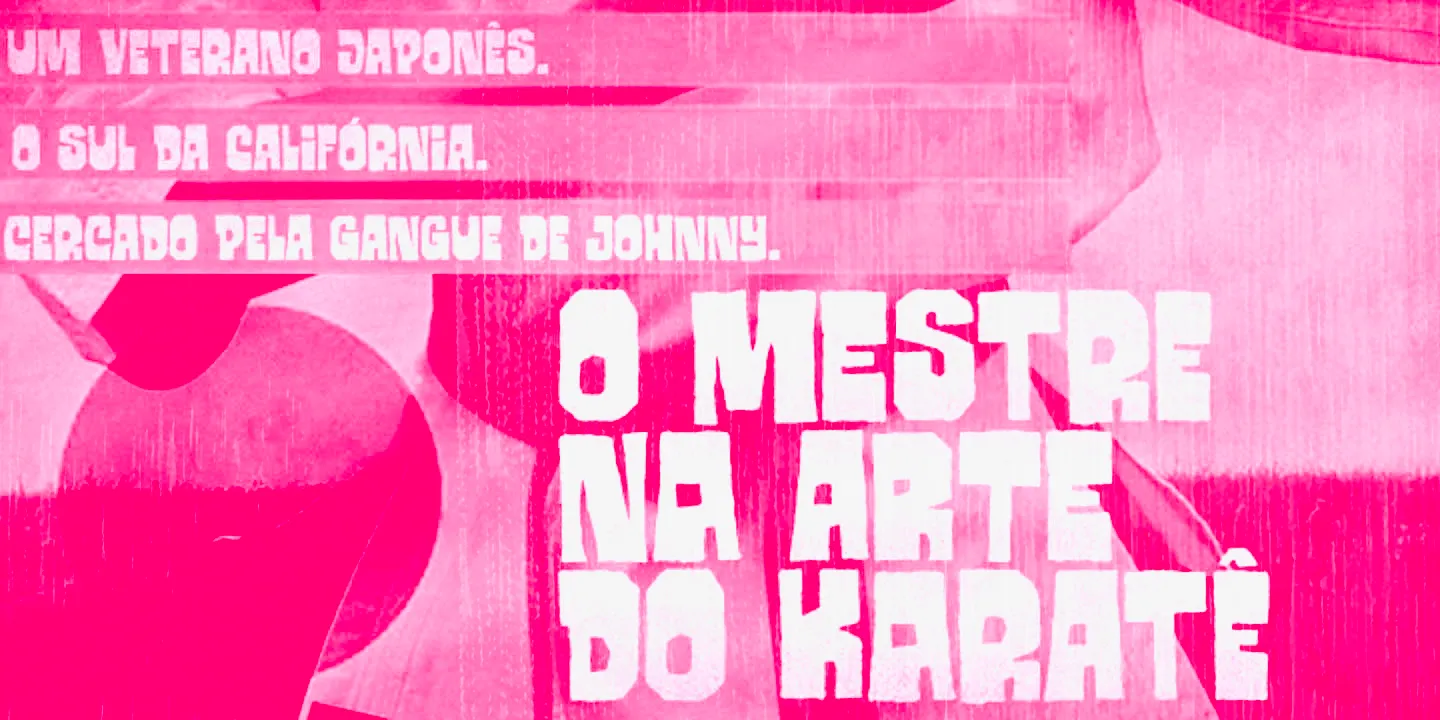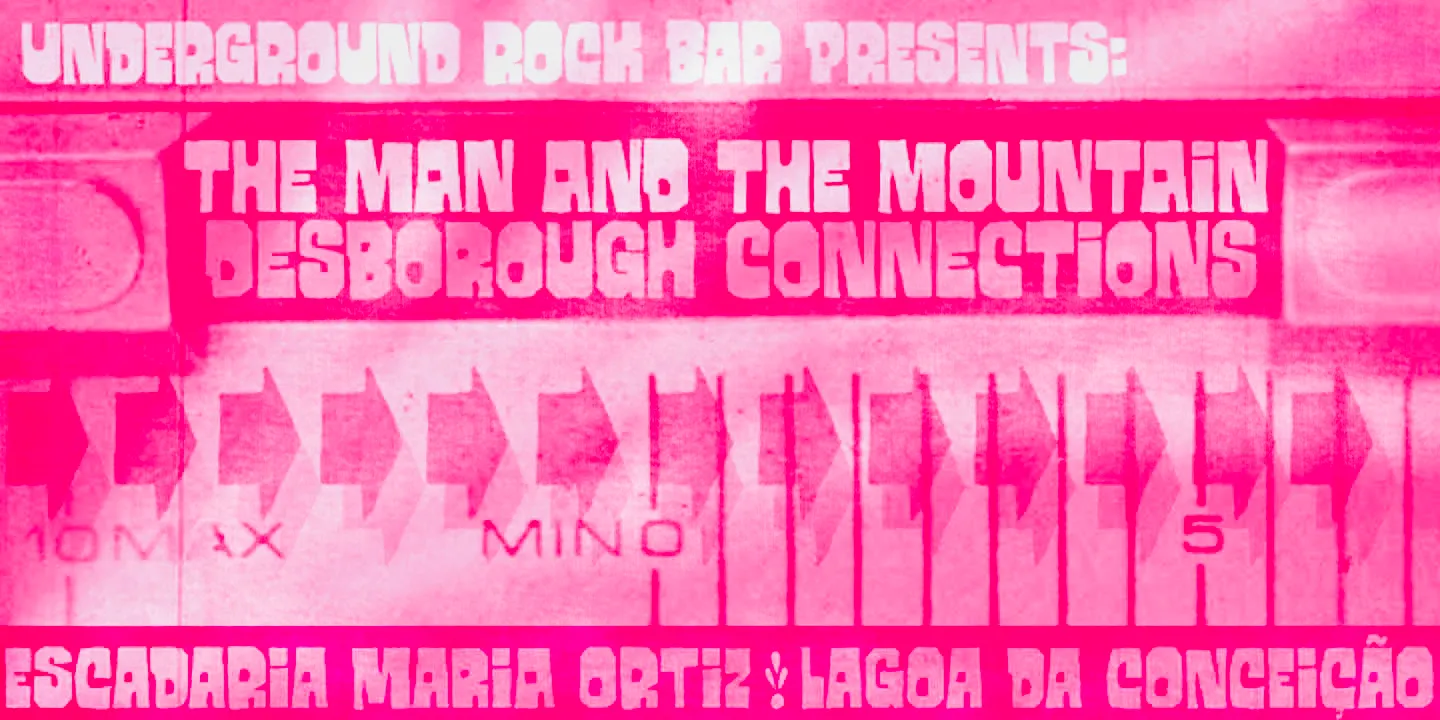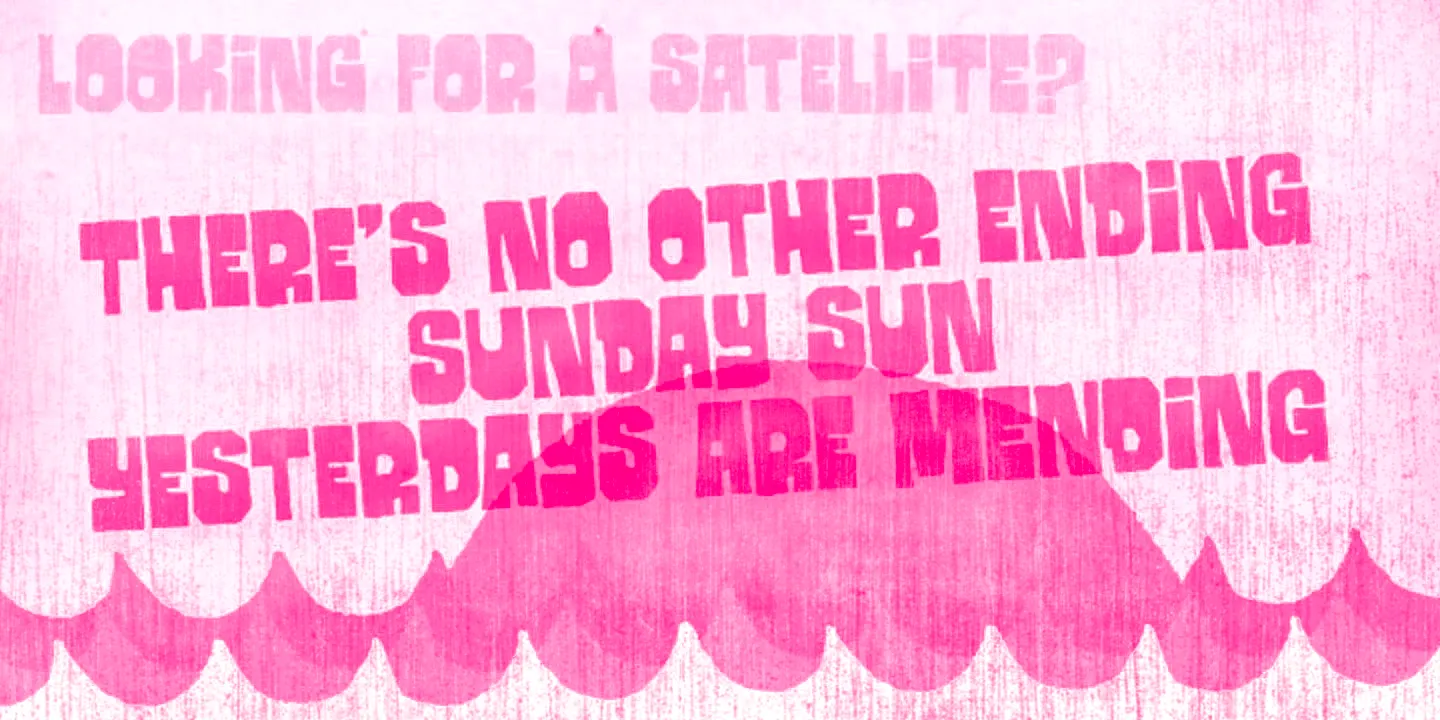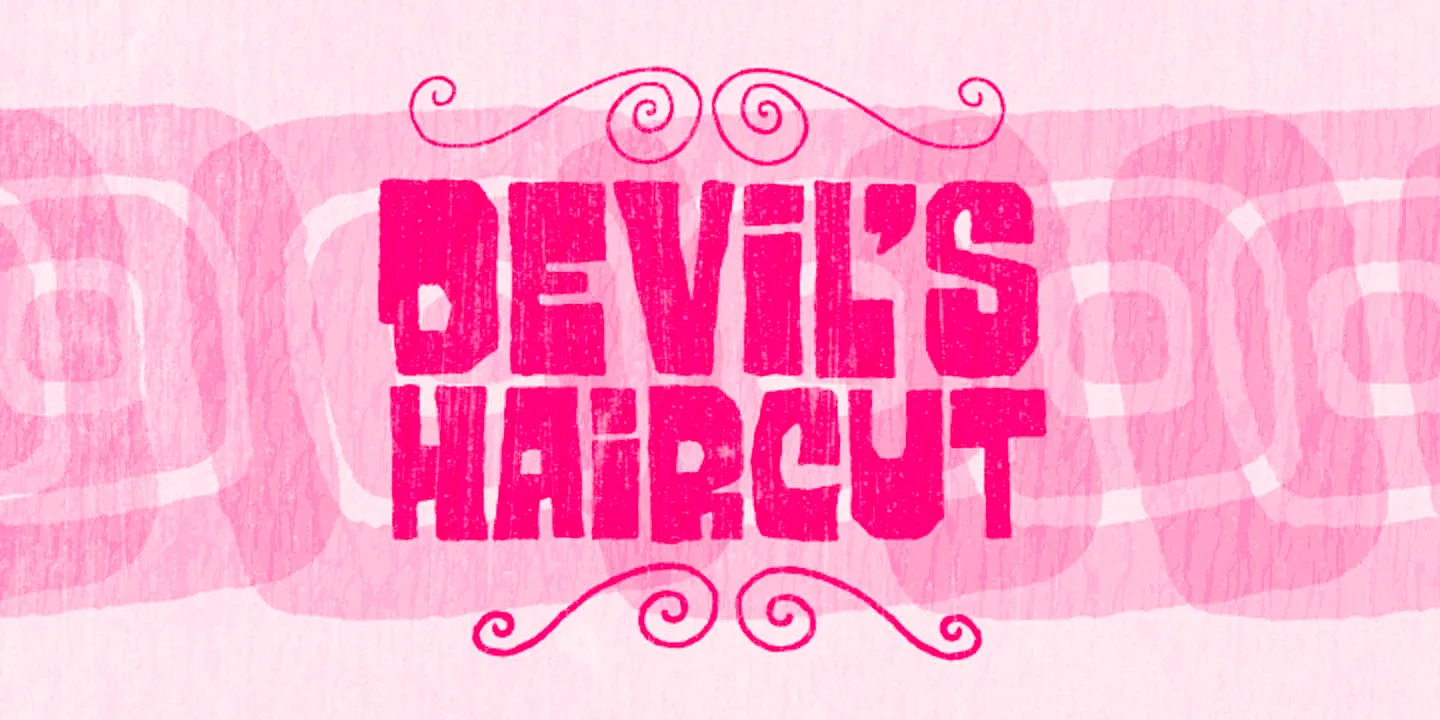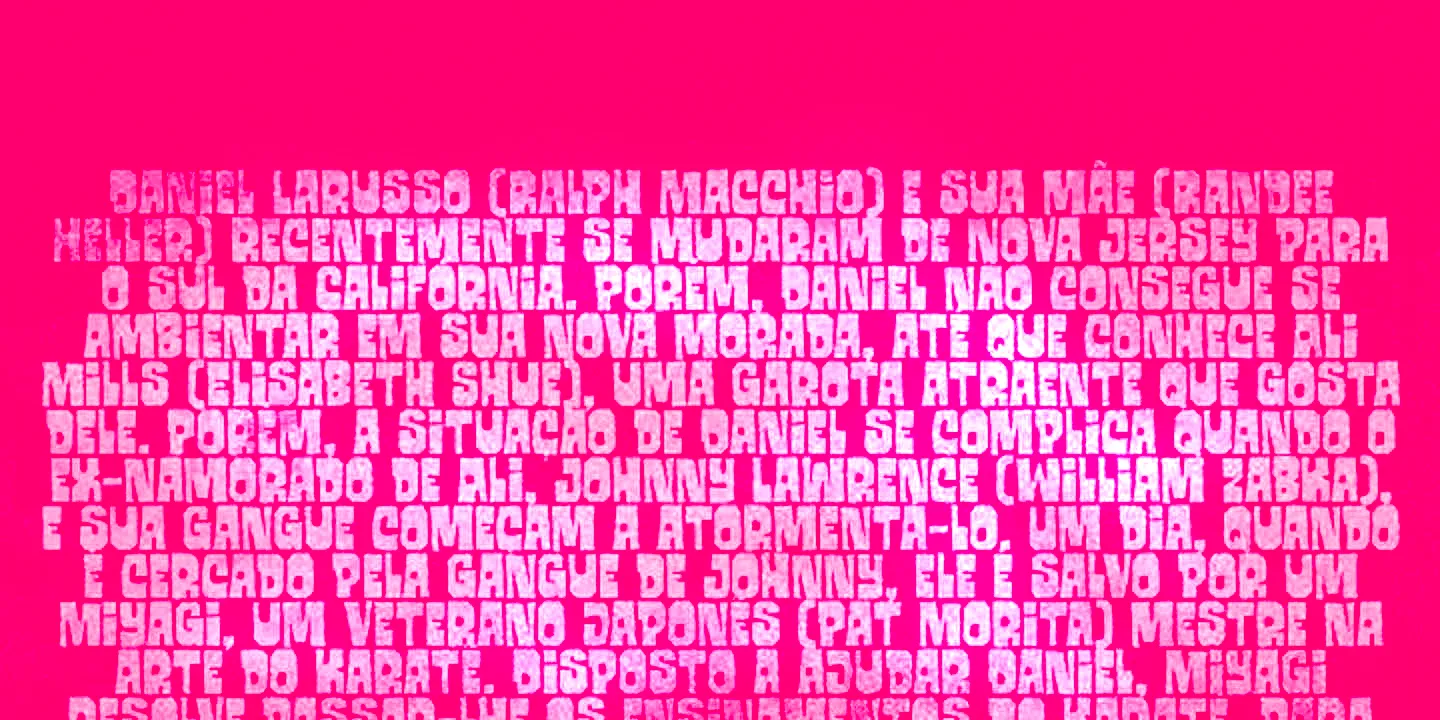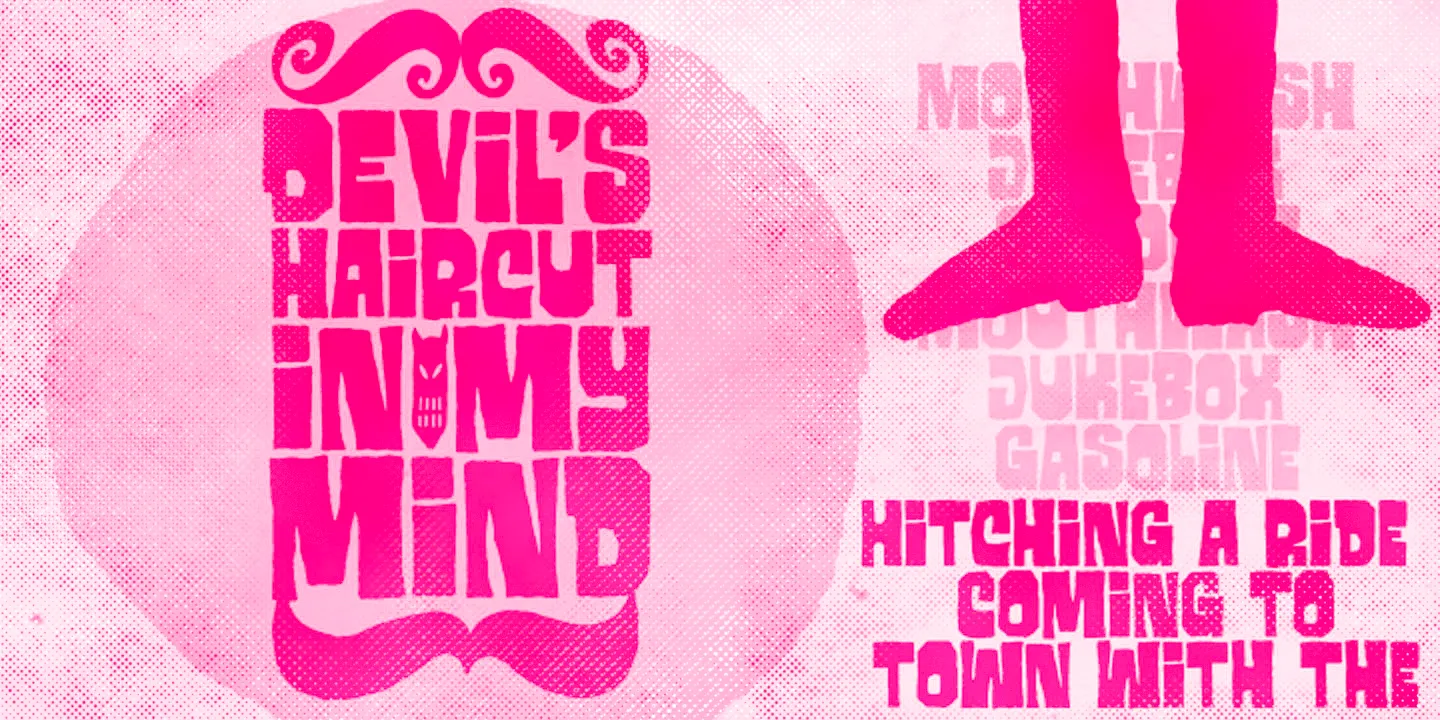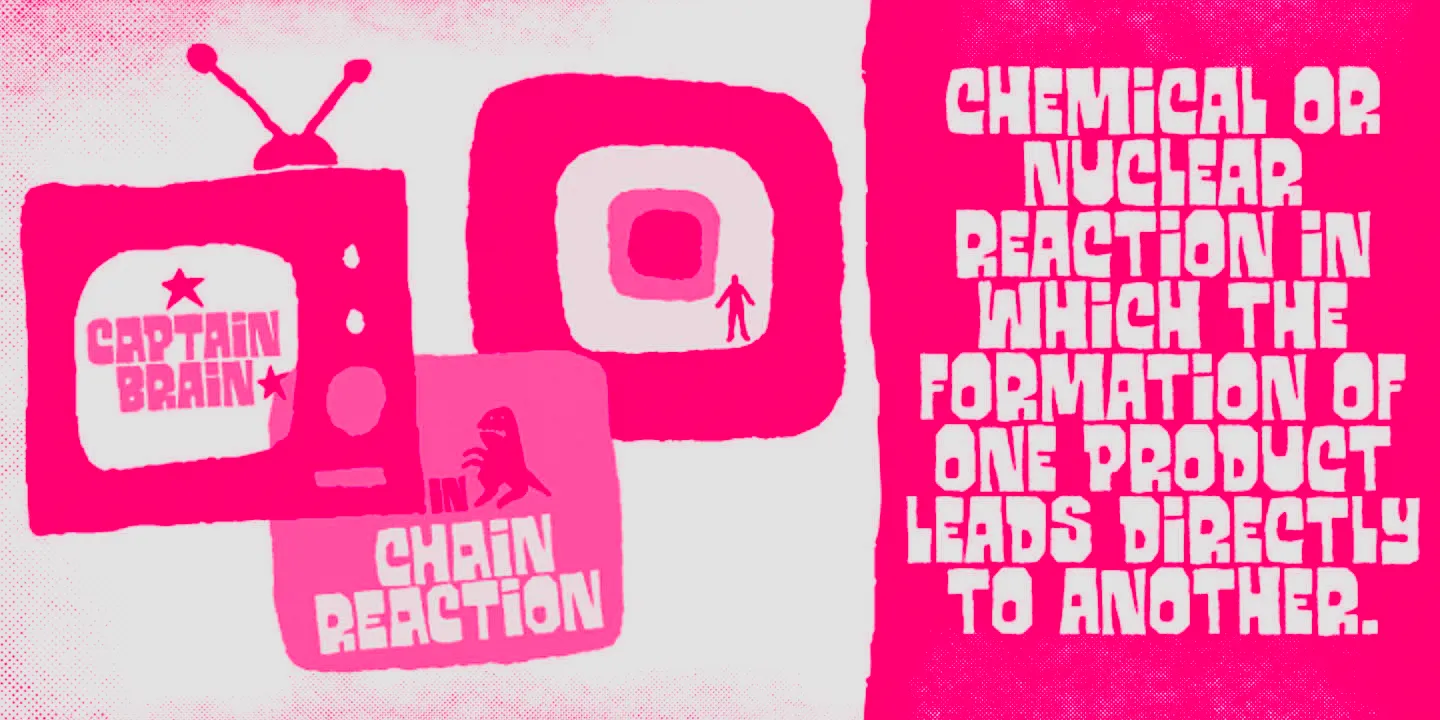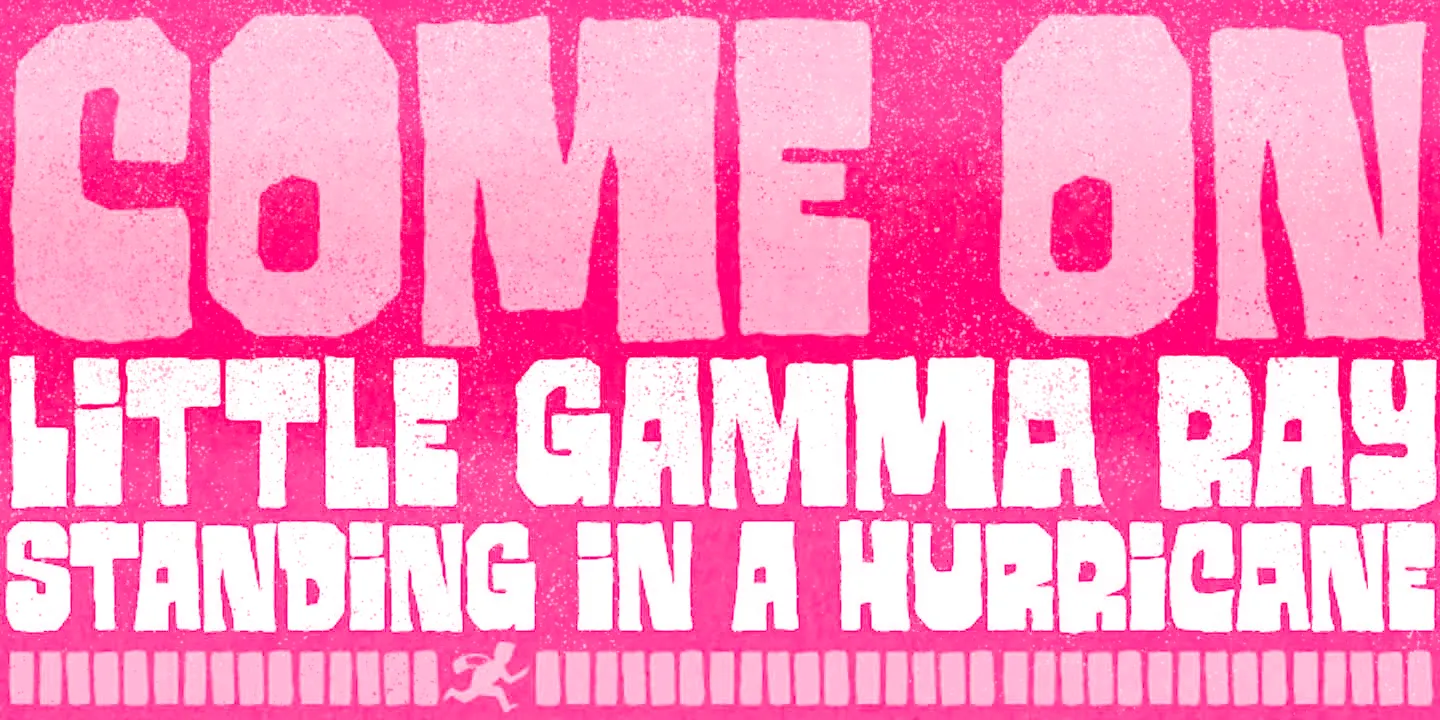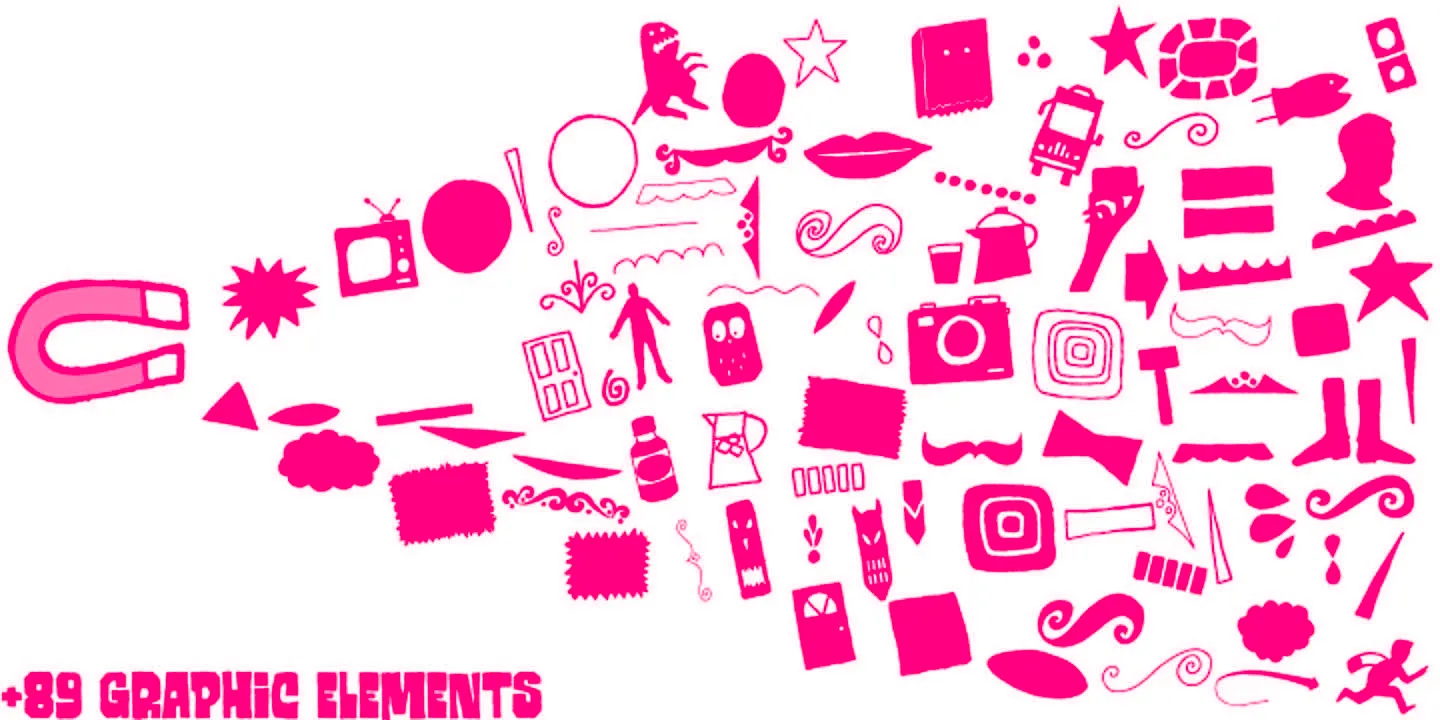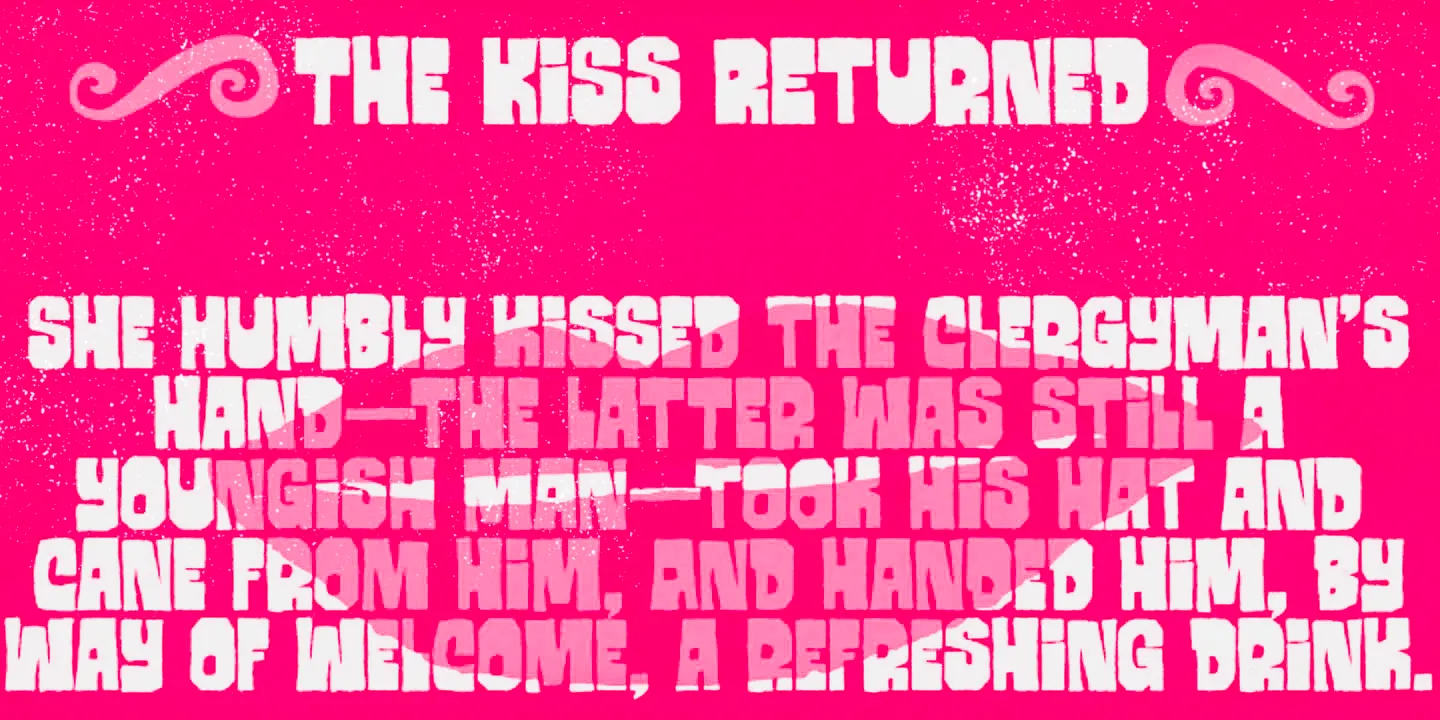
Manicuore Fonts
Manicuore
Manicuore is a hand-drawn typeface inspired by Italian movie posters from the prolific artist Symeoni. He enjoyed a long and fruitful career, being remarkably productive during the 1960s and 1970s. This all-caps font features different letter shapes in upper and lowercase slots, which serve as alternates, providing handy options to enhance your compositions. Manicuore also includes a cool set of graphic elements. Perfect for making a bold statement on posters, book covers, and magazines.